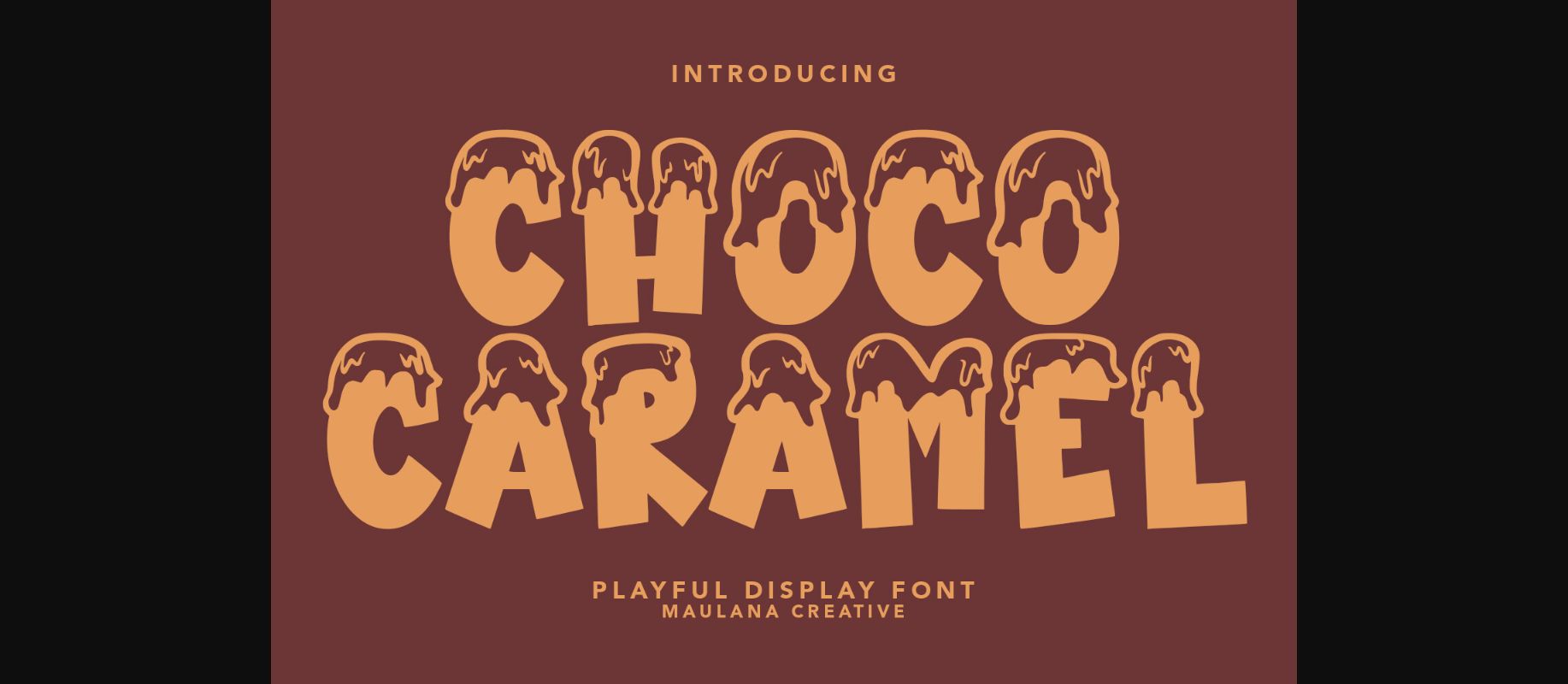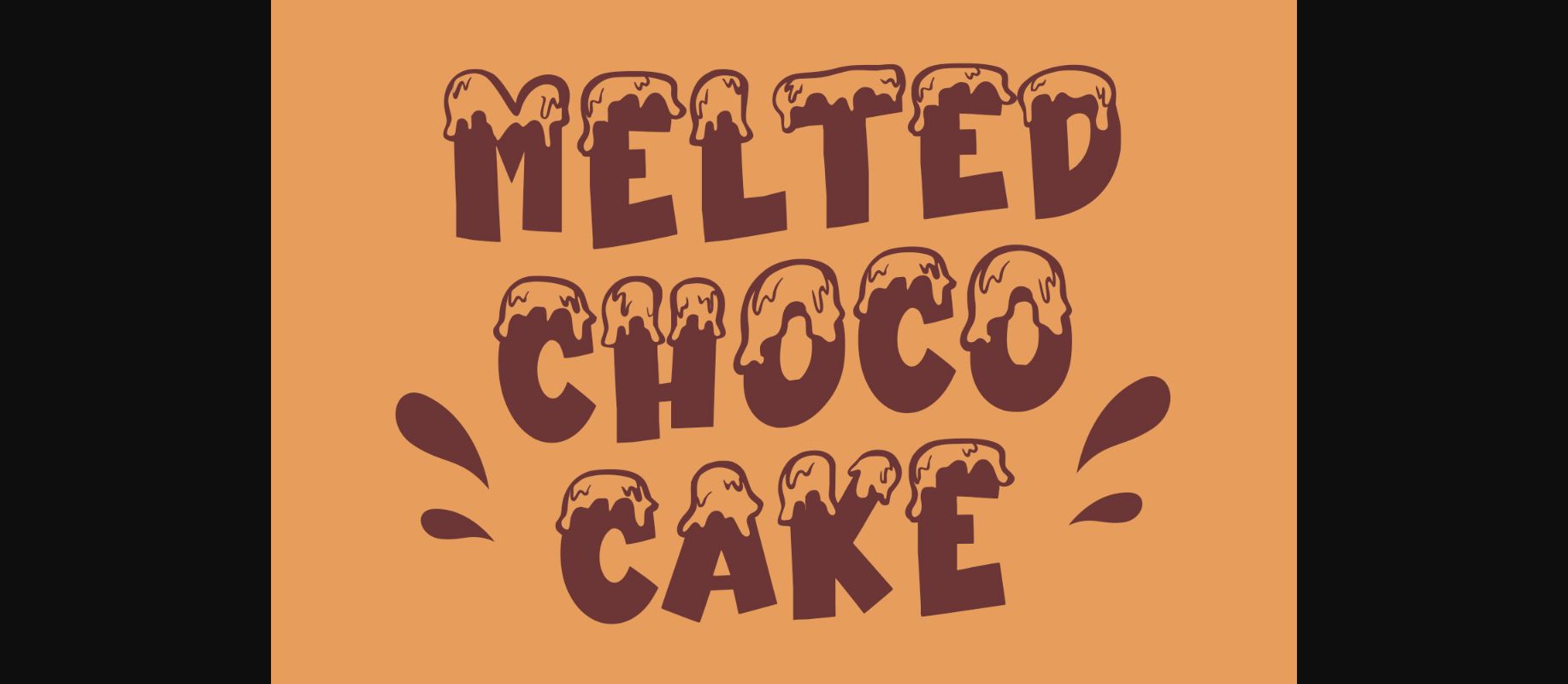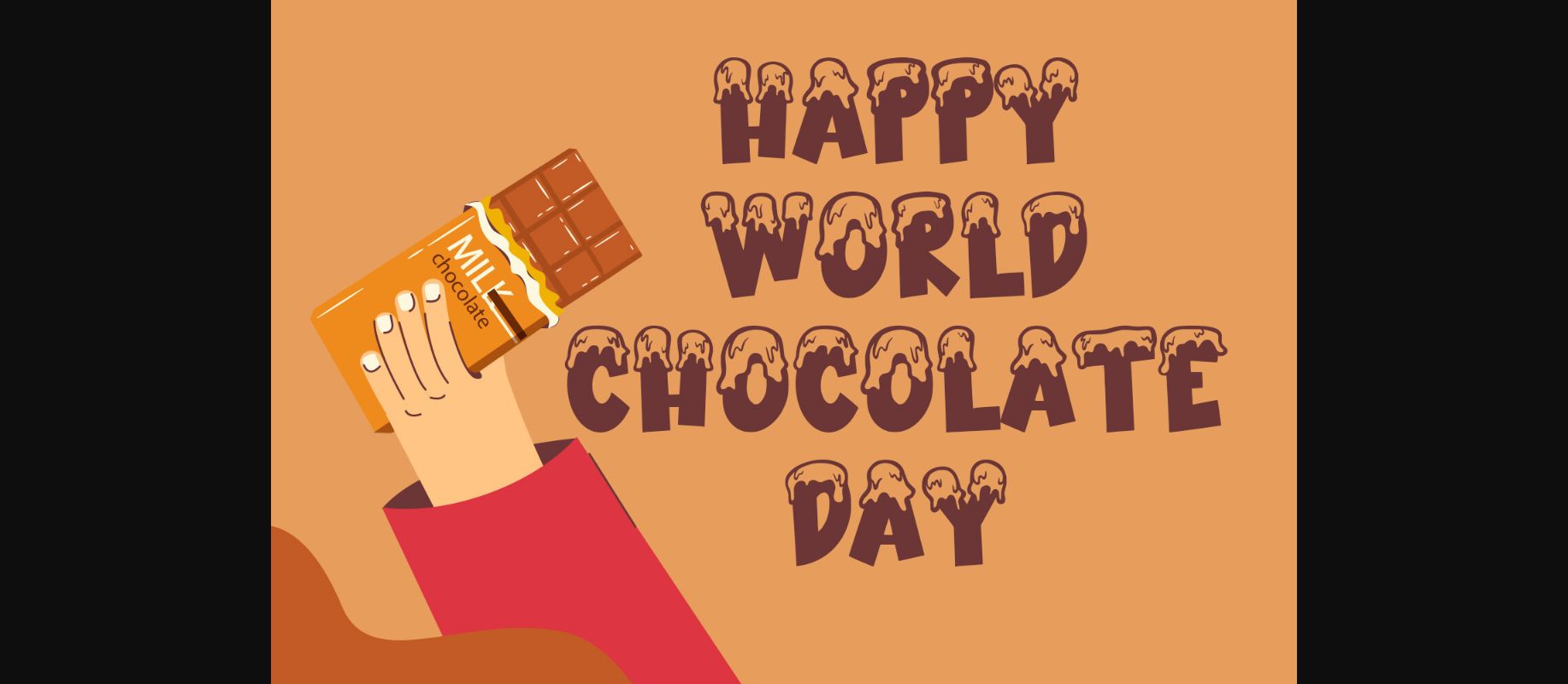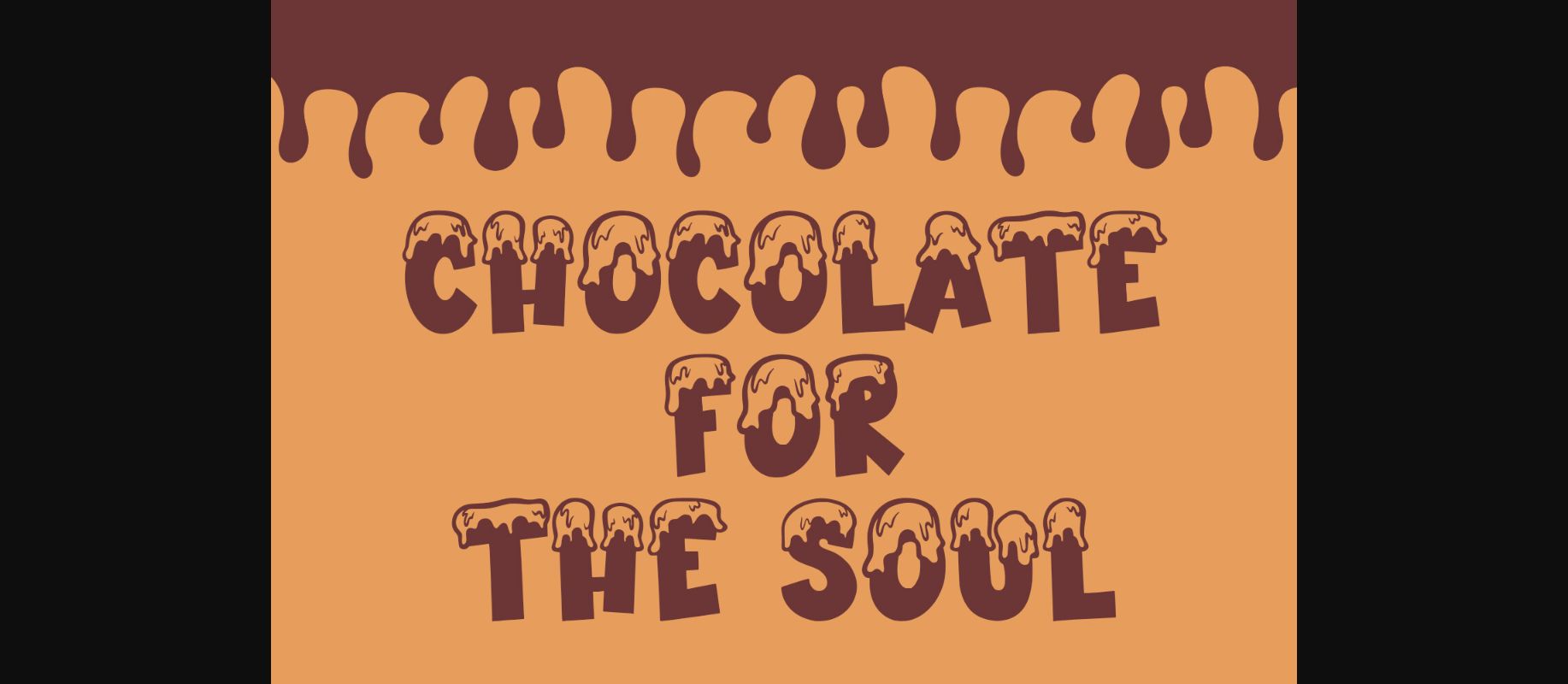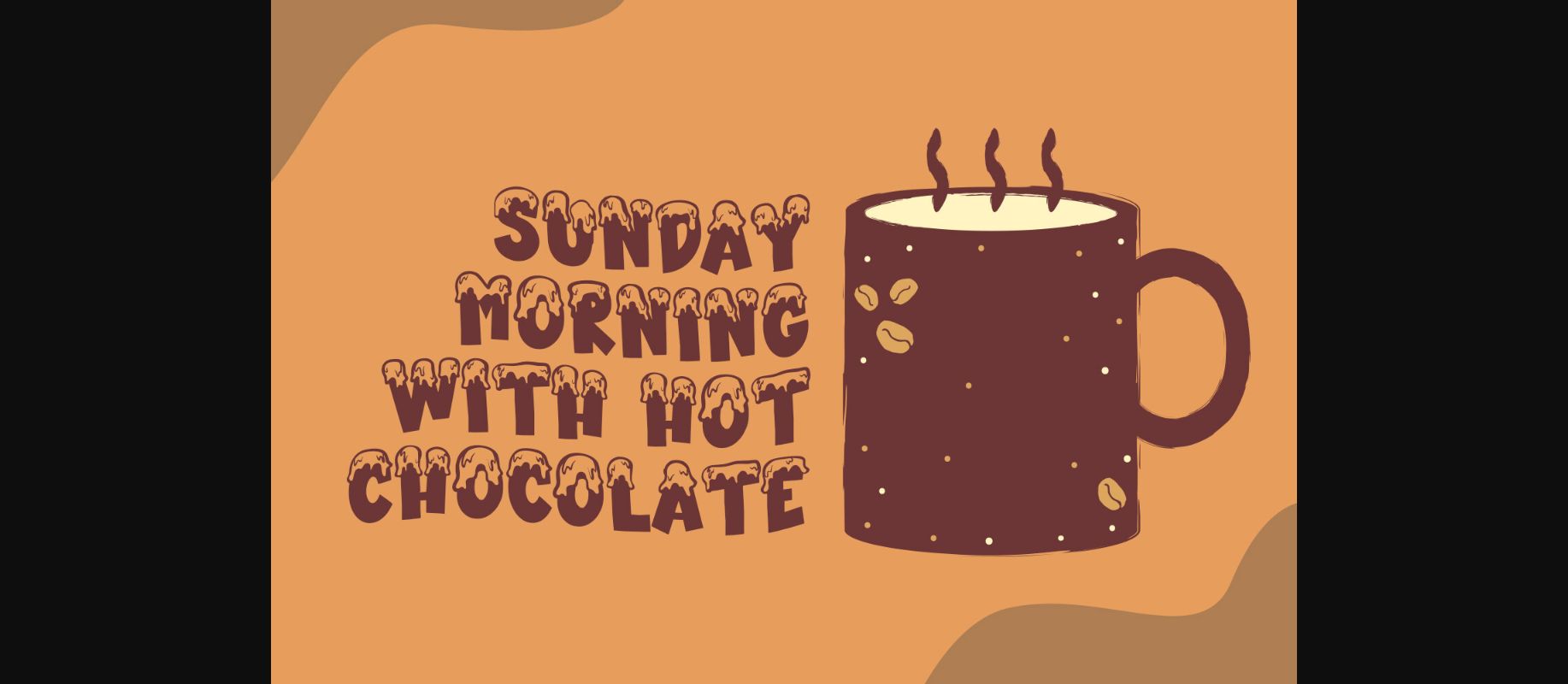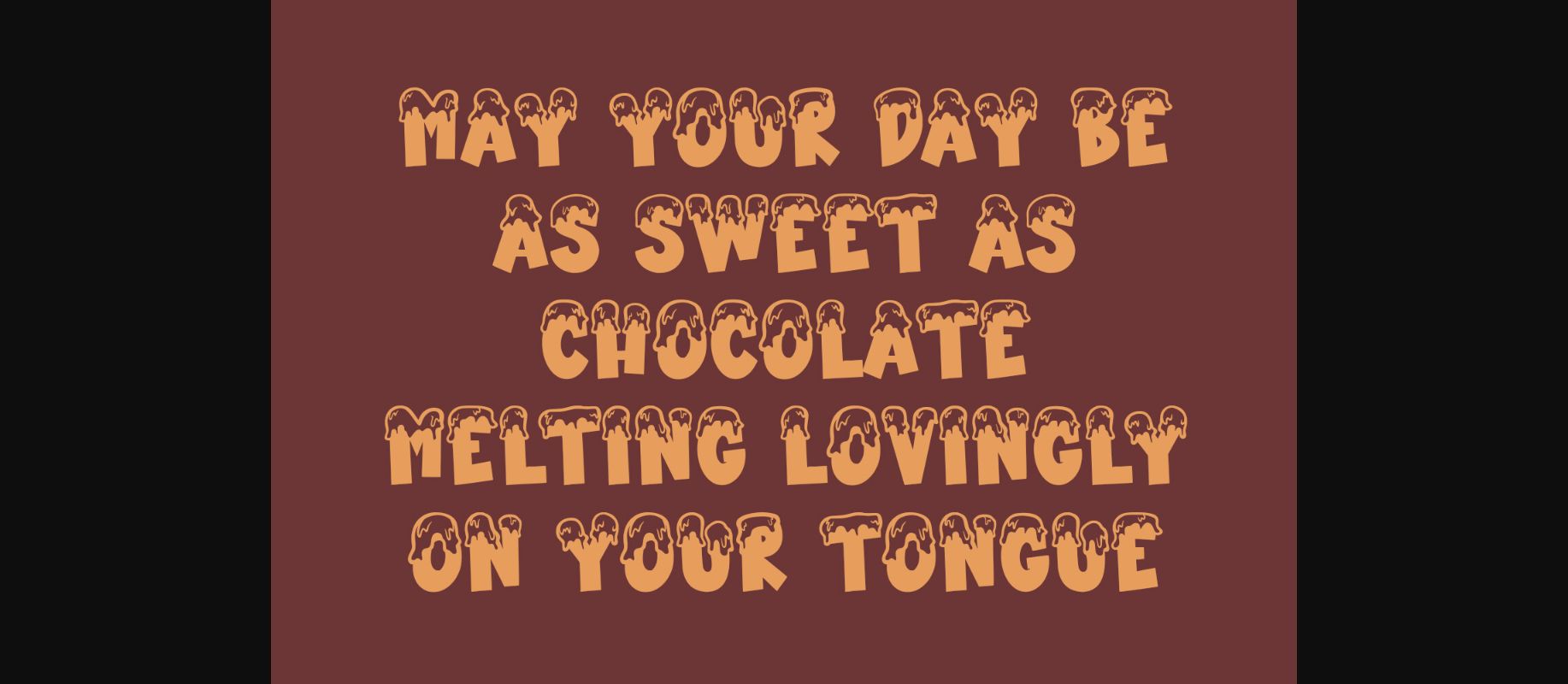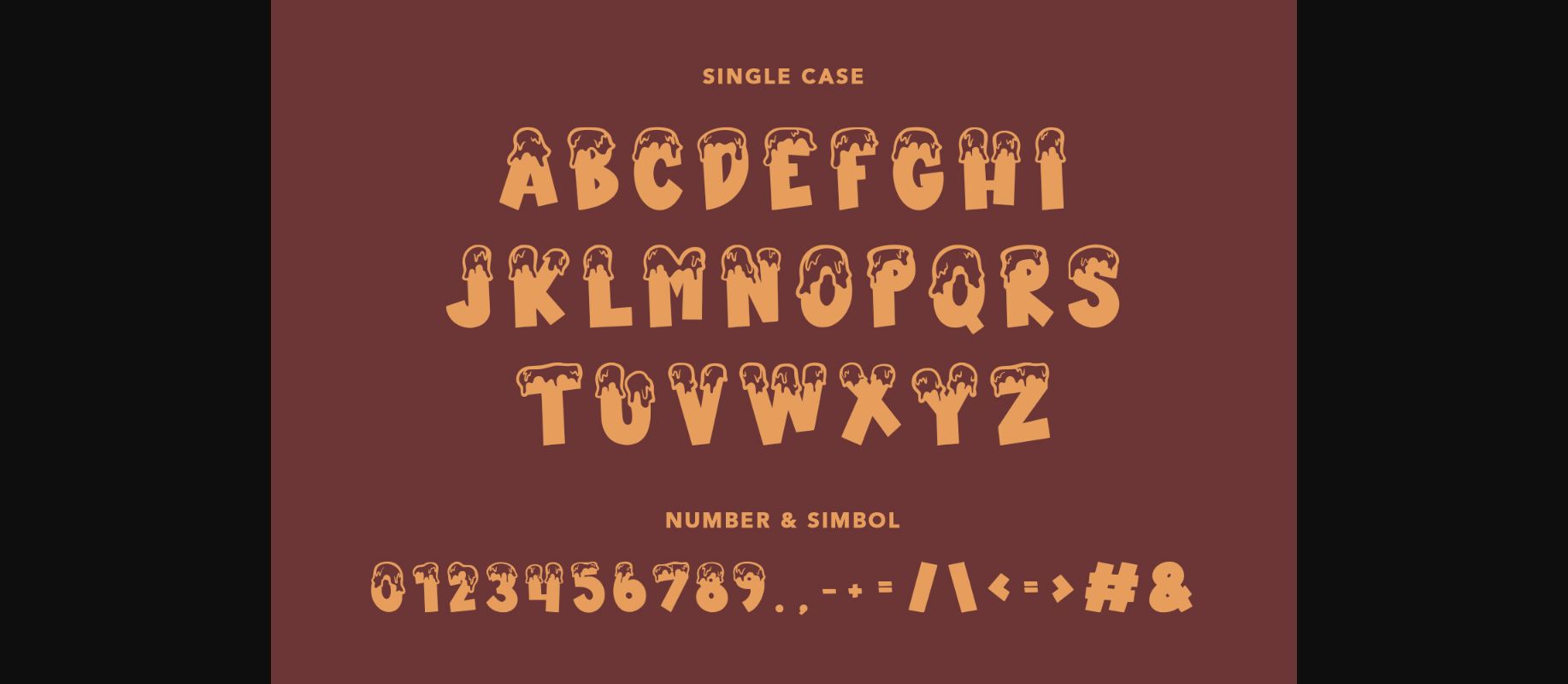
Choco Caramel Font
Choco Caramel font is a delectable decorative typeface where letters are adorned with luscious, melting chocolate. This sweet and indulgent font brings a mouthwatering charm to your designs. Perfect for adding a deliciously playful touch to dessert menus, branding, and creative projects, Choco Caramel is a treat for the eyes.